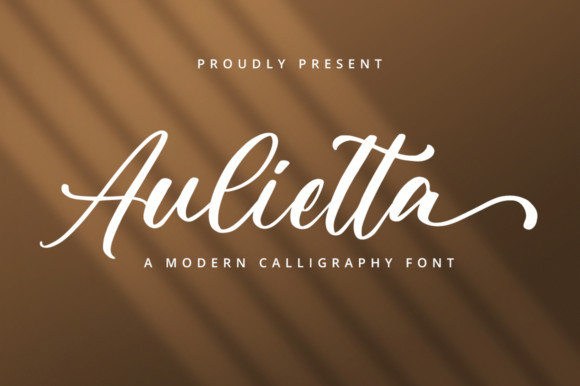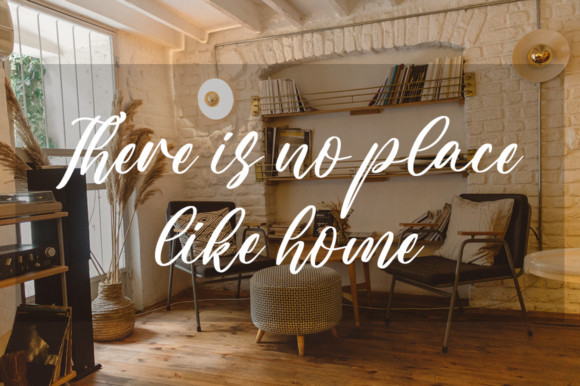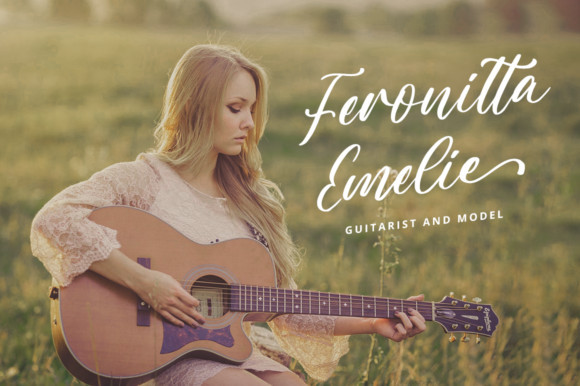
Aulietta Font
Aulietta is a delicate, elegant and flowing handwritten font. Get inspired by its authentic feel and use it to create gorgeous wedding invitations, beautiful stationary art, eye-catching social media posts, and cute greeting cards.